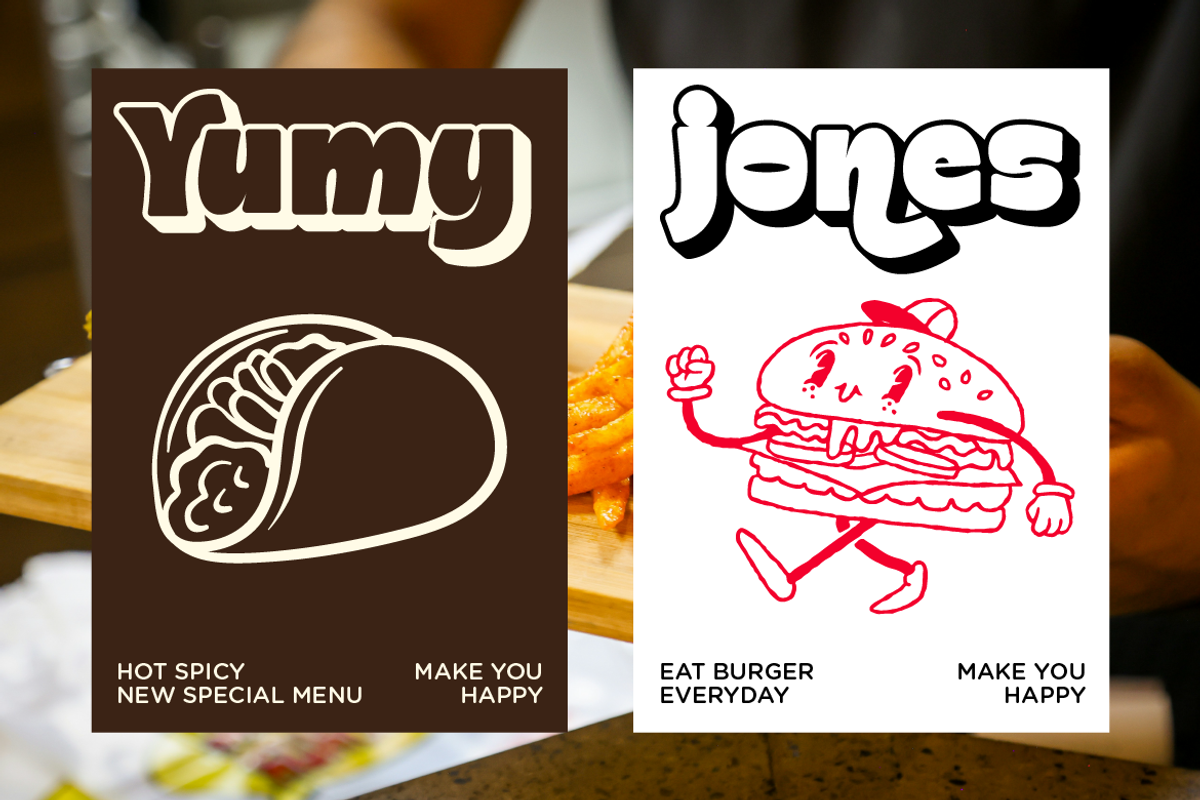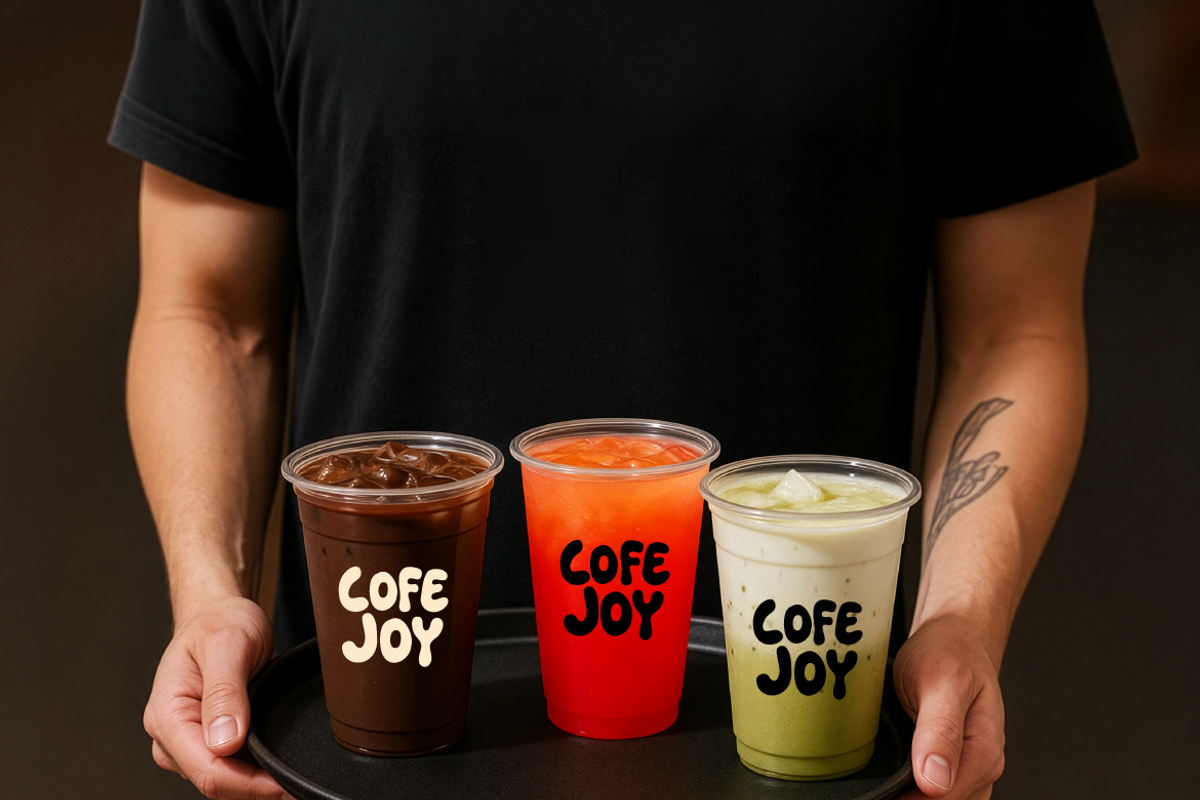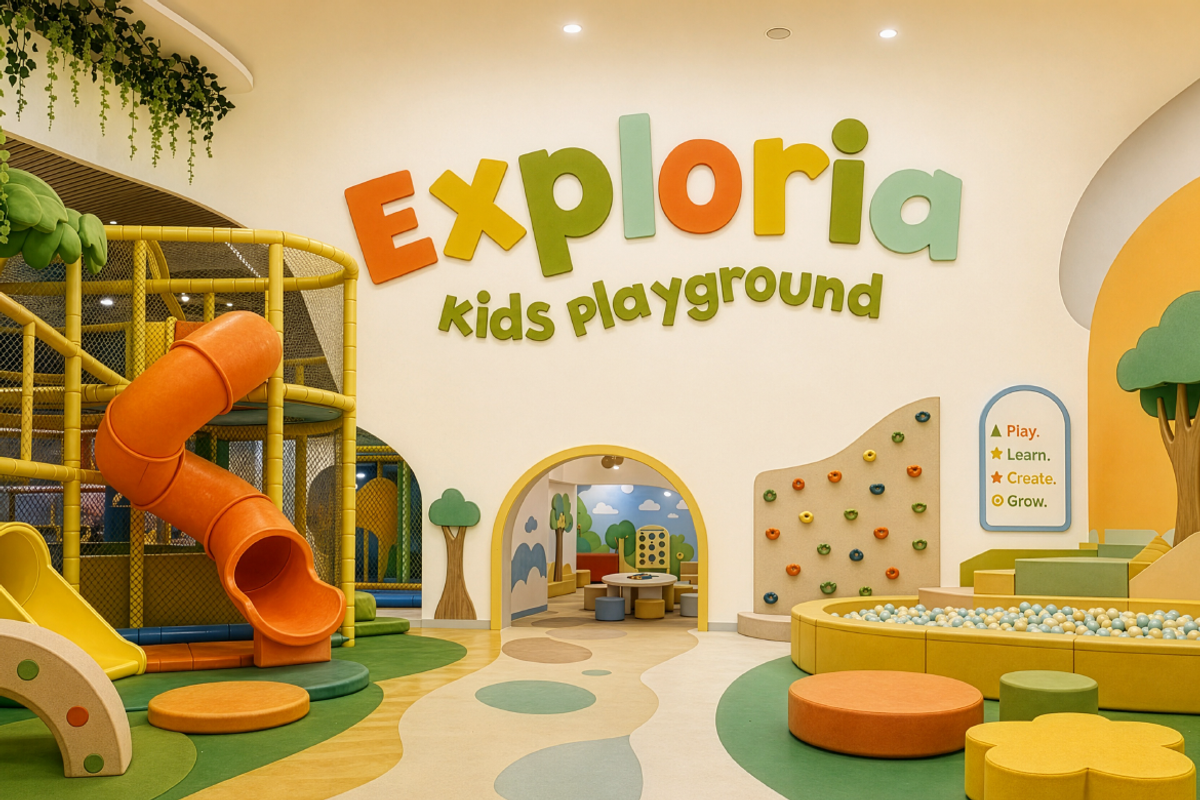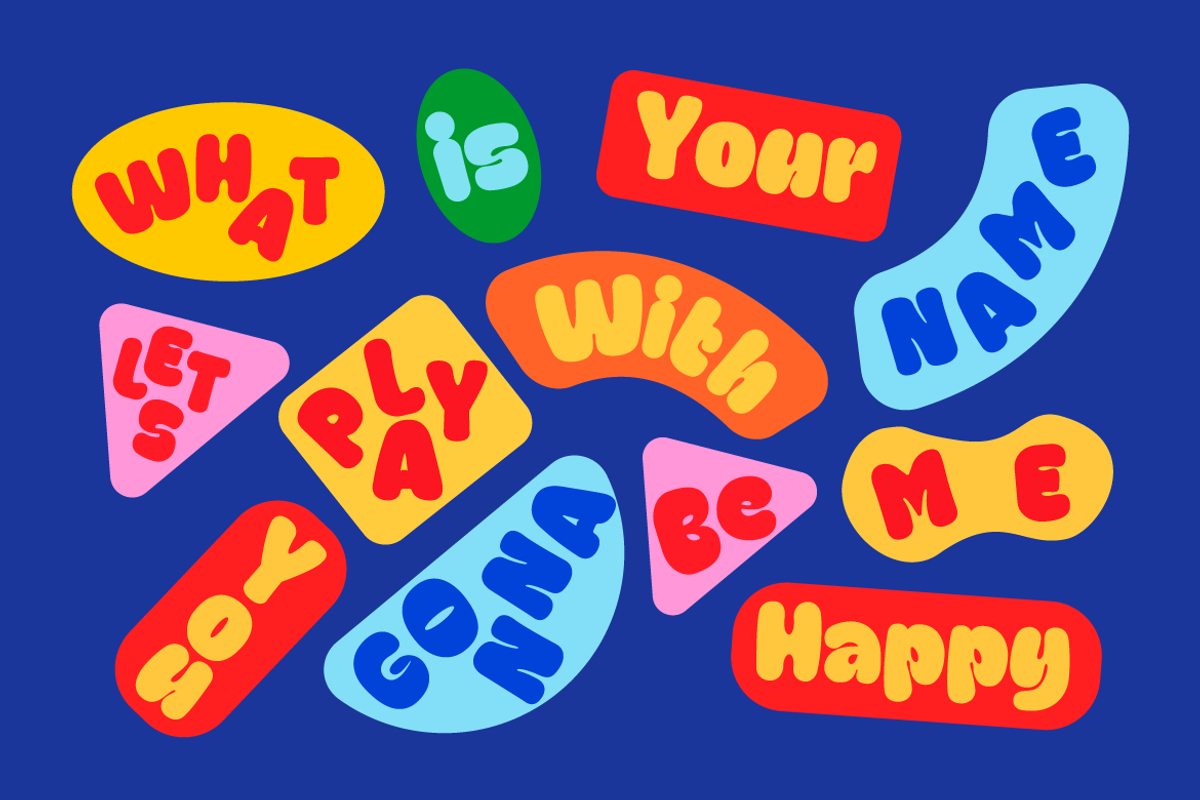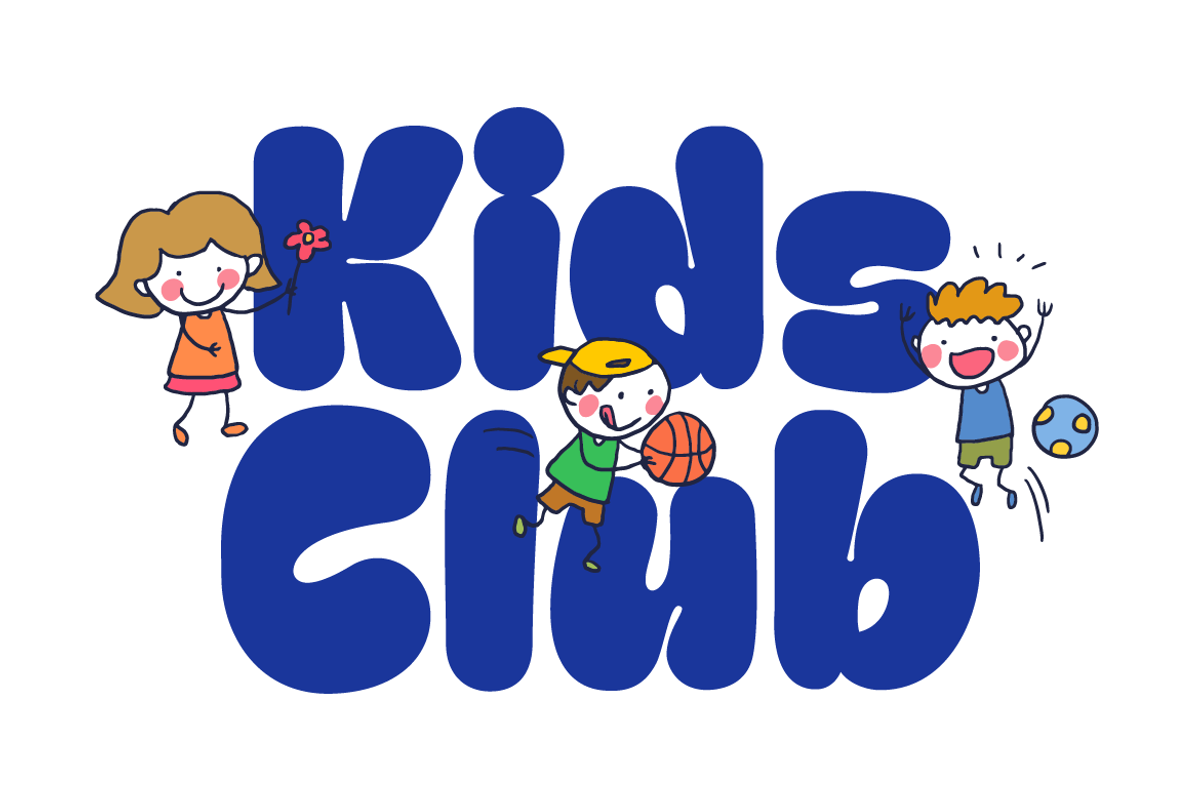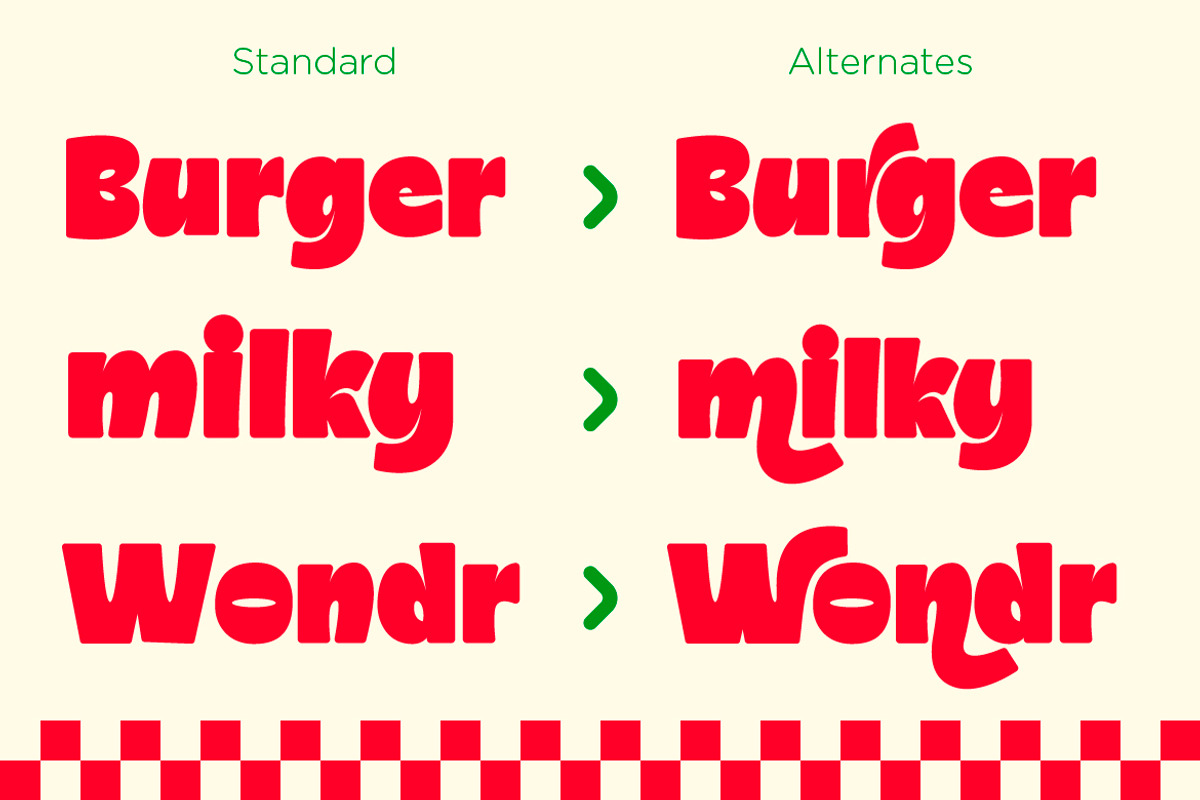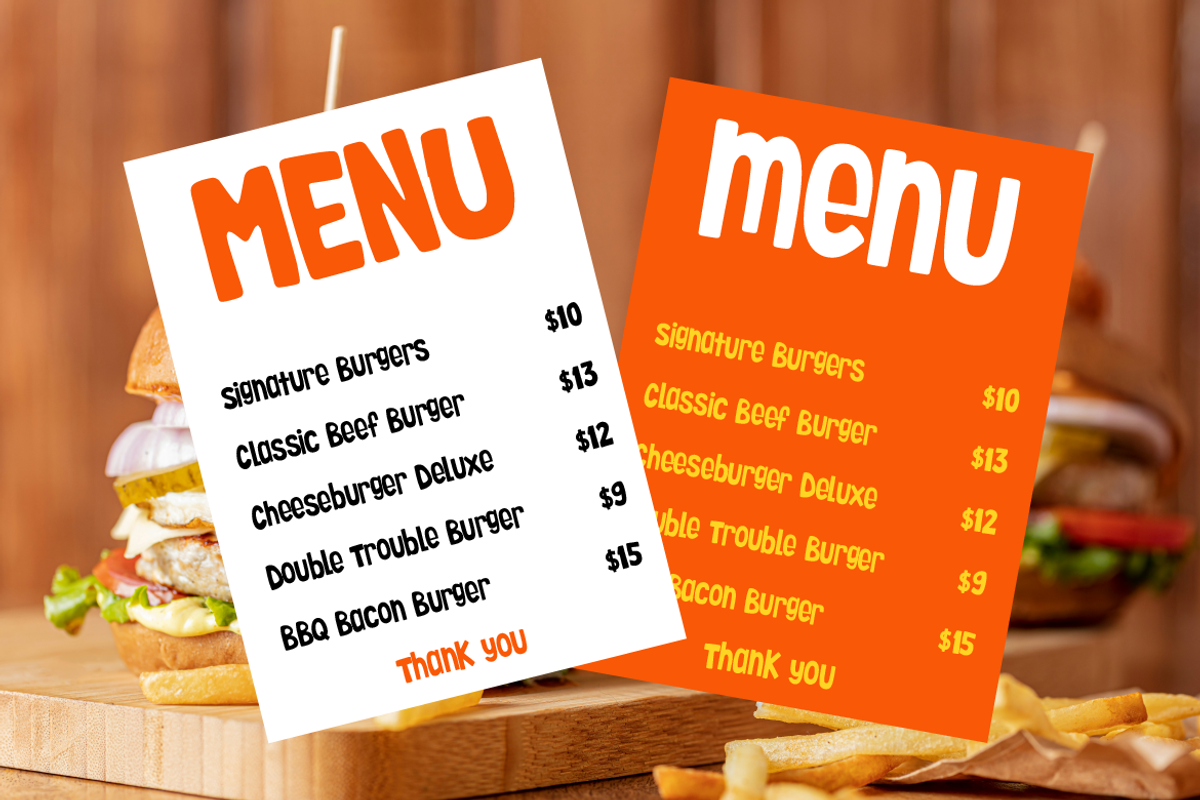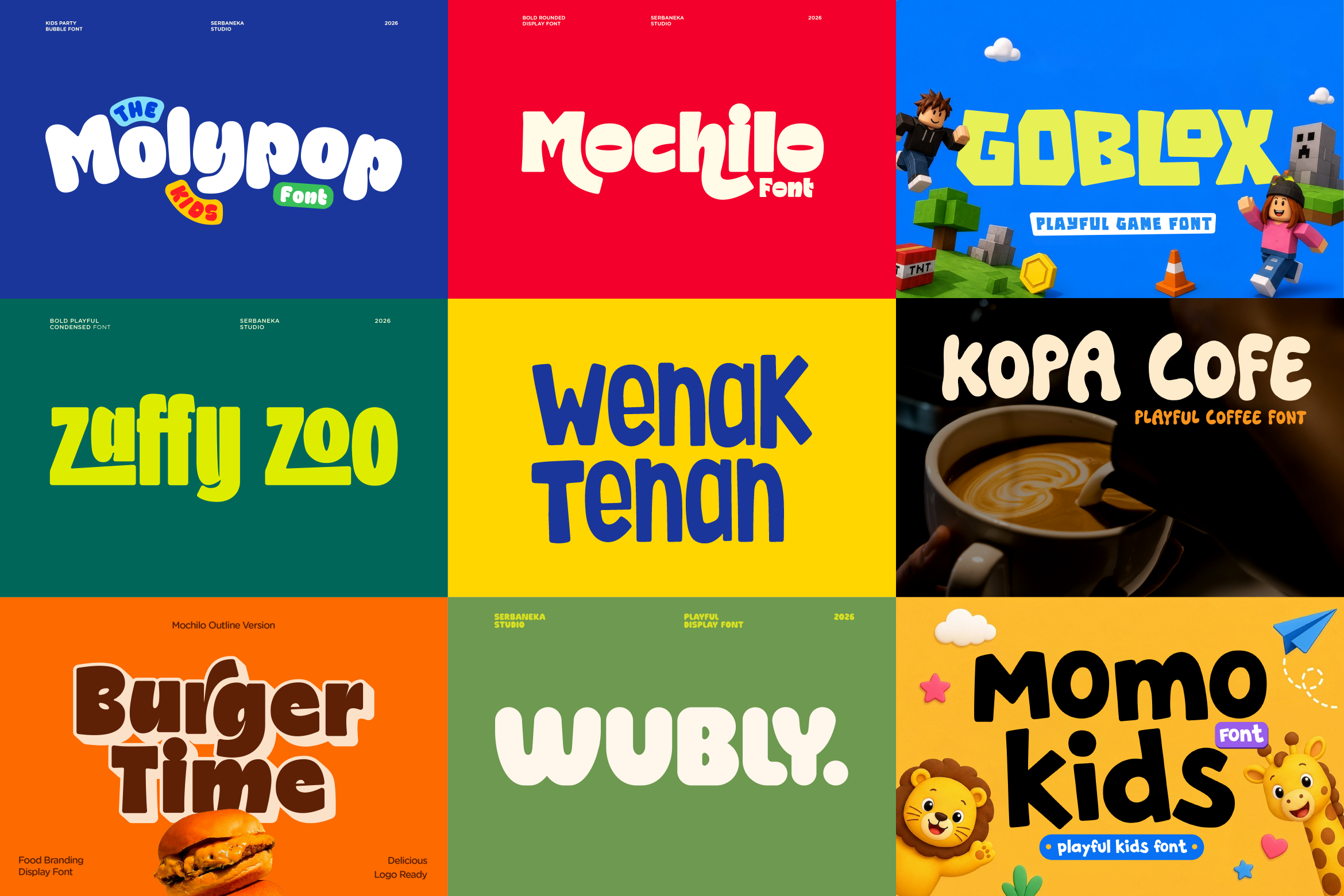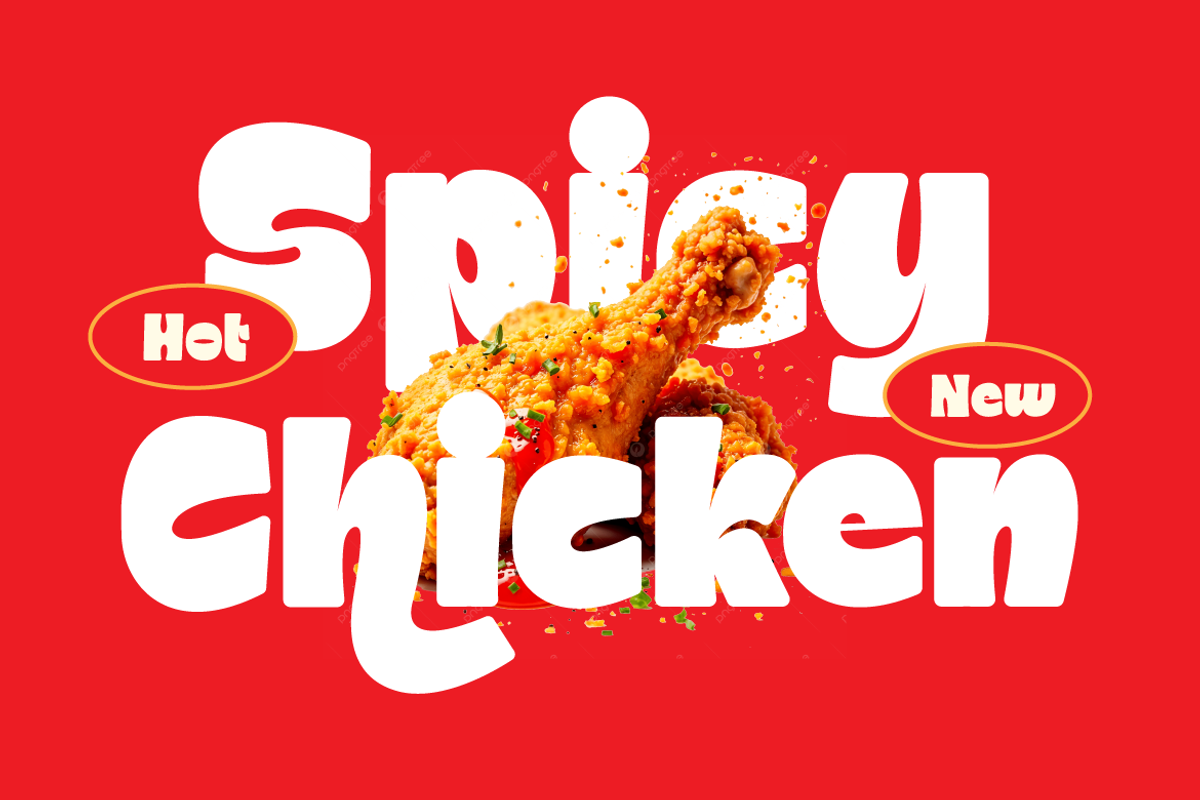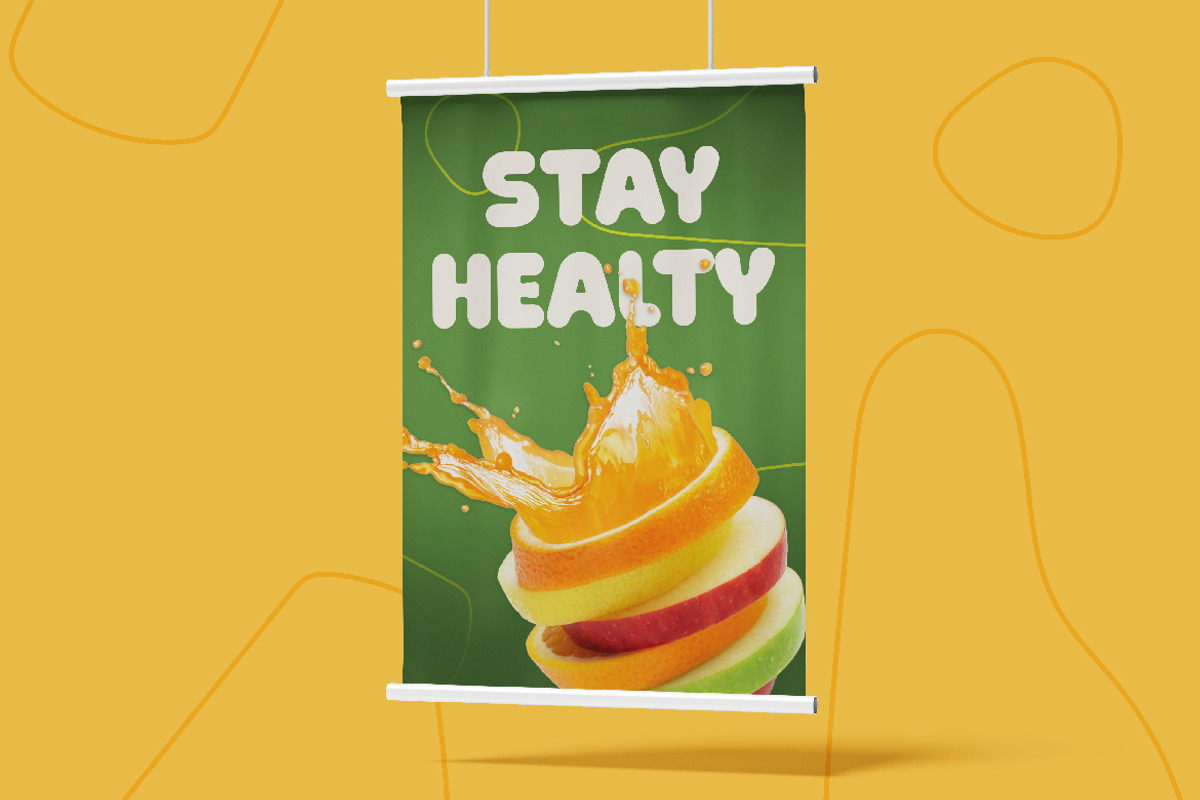
Bold Playful Font Bundle for Logos
Make your designs feel fun, bold, and friendly with this Bold Playful Font Bundle, a collection of 9 cute display fonts made for creative projects that need a joyful and eye-catching look.
This bundle is perfect for , food and restaurant branding, kids branding, game titles, toy packaging, birthday invitations, cafe logos, food packaging, posters, stickers, merch designs, book covers, and social media graphics. Each font has a bold, rounded, and playful personality, making it easy to create standout designs for both digital and print projects.
Molypop Font
Mochilo Font
Goplox Font
Zuffy Zoo Font
Wondak Tenon Font
Kopa Loff Font
Burger Time Font
Wubly Font
Momo Kids Font
Kids logos and branding
Game graphics and titles
Food and cafe branding
Packaging design
Posters and flyers
Birthday invitations
Stickers and merchandise
Social media posts
Children’s books and playful layouts
Bring a fun, chunky, cartoon-inspired style to your next design project with this playful font collection.